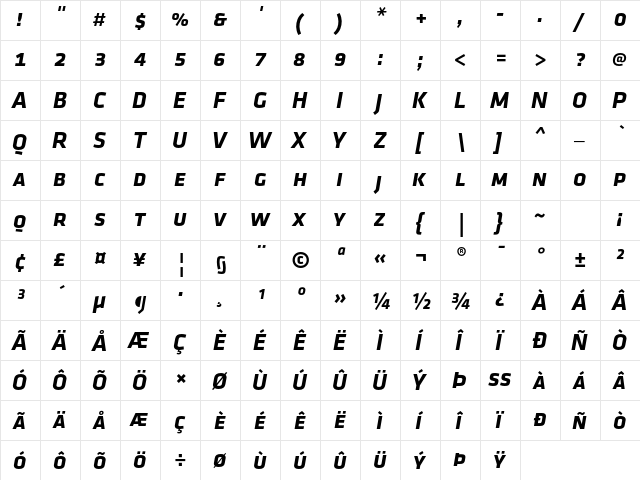
Klavika Bold Caps Bold Italic Font Preview
Design Context for Klavika Bold Caps Typeface
Klavika Bold Caps offers clean, dependable letterforms without strong stylistic allegiance, making it a practical choice for designers who need flexibility. The dynamic lean of this cut emphasises speed and emphasis in any layout. Its bold stroke weight gives it real presence on the page.
Pro Tip: Try Klavika Bold Caps for annotation and caption copy alongside an upright companion — the contrast in angle creates a dynamic but ordered typographic system.